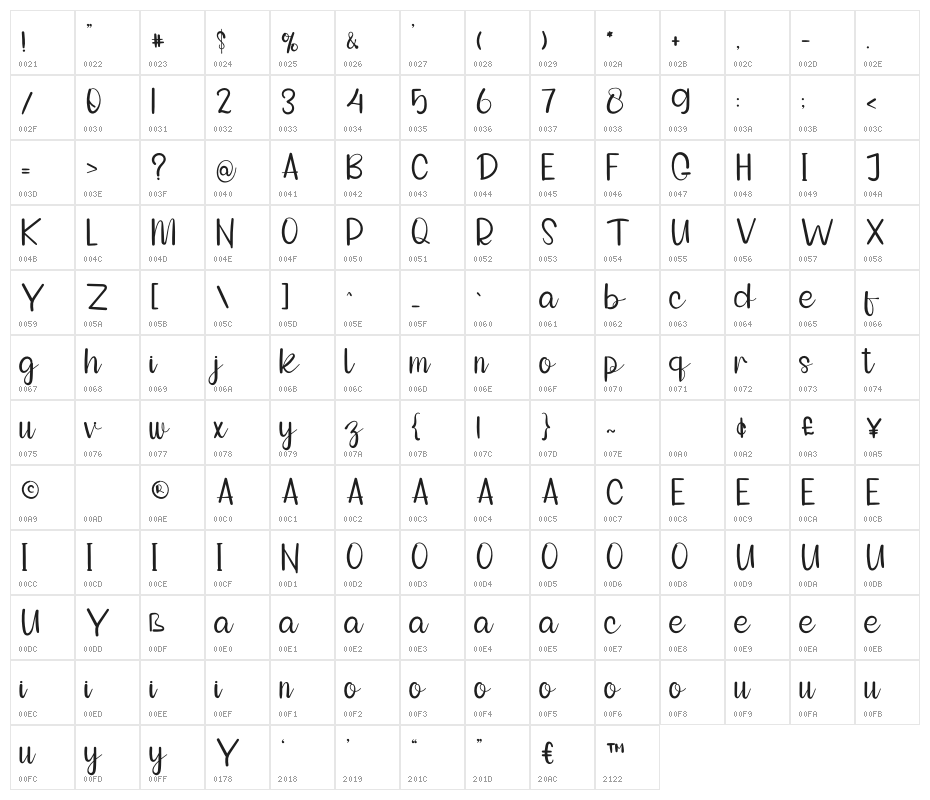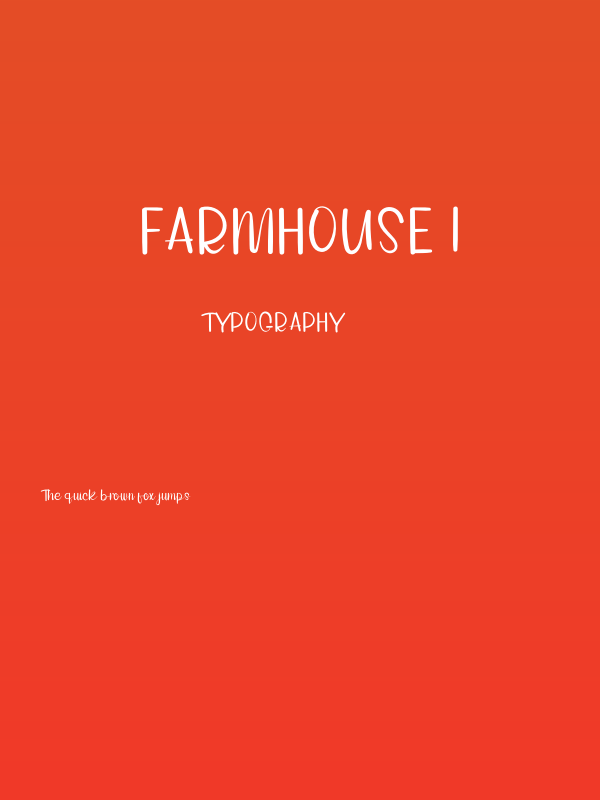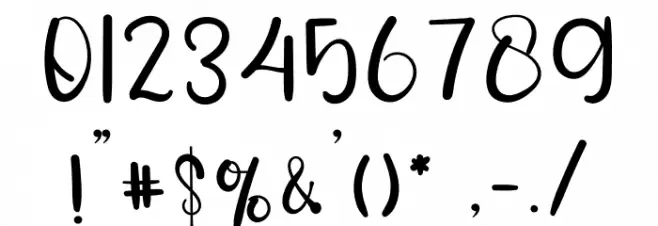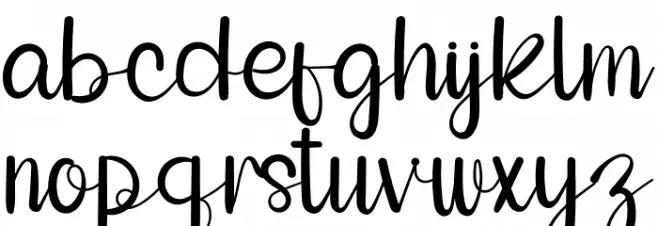
Farmhouse 1 Font
Farmhouse 1 Description
This font features a playful and casual handwritten style, characterized by its smooth curves and slightly irregular strokes. The uppercase letters are bold and slightly elongated, giving them a distinctive appearance. The lowercase letters maintain a consistent flow, with some letters like 'g' and 'y' having unique loops that add to the font's charm. The numerals are clear and easy to read, with a slight slant that complements the overall style. Special characters are well-integrated, maintaining the font's casual and friendly vibe. This font is perfect for projects that require a personal touch, such as invitations, greeting cards, or branding materials.